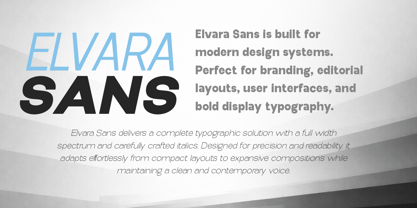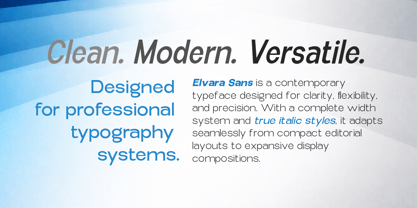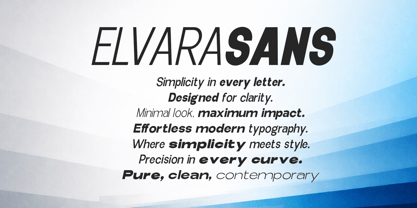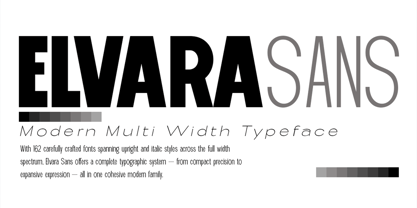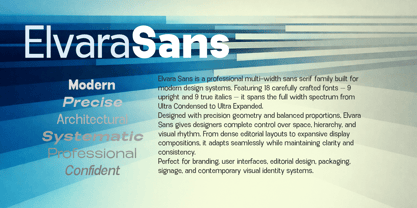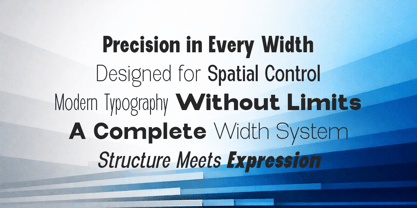
Elvara Sans
von Artisan Studio
Die Schriftfamilie Elvara Sans wurde von Roiyani Teungku entworfen und von Artisan Studio veröffentlicht. Elvara Sans enthält 162 Stile und Familienpaketoptionen. Mehr über diese Familie
ELVARA SANS Elvara Sans is a contemporary sans serif typeface built for precision, versatility, and visual control. Designed with a complete width system, it allows designers to shape layout density, hierarchy, and expression effortlessly — from extremely compact typography to expansive display compositions. The family includes 162 fonts in total: 9 Upright styles and 9 Italic styles, covering the full width spectrum. Each italic is carefully crafted — not simply slanted — to provide dynamic contrast while preserving clarity and balance. Ultra Condensed — Upright & Italic The narrowest and most space-efficient style in the Elvara Sans family. Ultra Condensed is designed for maximum compression without losing structural clarity. Ideal for bold headlines, posters, tight columns, and dramatic vertical layouts that demand strong visual intensity. Extra Condensed — Upright & Italic Highly compact with refined proportions that maintain readability in dense environments. Extra Condensed is perfect for packaging, editorial headlines, structured branding, and information-heavy compositions that require tight spacing with professional clarity. Condensed — Upright & Italic A practical and highly functional narrow width. Condensed offers excellent balance between space-saving efficiency and comfortable readability. Well suited for magazines, corporate materials, UI design, and structured typographic systems. Semi Condensed — Upright & Italic A subtly reduced width that feels efficient yet relaxed. Semi Condensed provides flexibility for modern layouts, branding, and digital use where controlled spacing and visual harmony are essential. Normal — Upright & Italic The core proportion of Elvara Sans. Neutral, balanced, and highly legible, Normal is designed for maximum versatility — ideal for body text, identity systems, editorial work, and everyday design applications. Semi Expanded — Upright & Italic Gently widened proportions create a more open and contemporary appearance. Semi Expanded enhances readability and adds visual breathing space, making it perfect for modern branding, elegant layouts, and premium design environments. Expanded — Upright & Italic Clearly wider and more expressive. Expanded provides strong visual presence and clarity, making it ideal for signage, headlines, and confident brand communication that benefits from openness and emphasis. Extra Expanded — Upright & Italic Boldly wide and highly expressive. Extra Expanded delivers strong typographic personality and visual impact, perfect for posters, display headlines, and striking identity design. Ultra Expanded — Upright & Italic The widest and most dramatic style in the family. Ultra Expanded is designed for maximum visual statement — ideal for large-scale display, futuristic compositions, and standout branding that demands attention. With 162 carefully crafted fonts spanning upright and italic styles across the full width spectrum, Elvara Sans offers a complete typographic system — from compact precision to expansive expression — all in one cohesive modern family.
Designer: Roiyani Teungku
Foundry: Artisan Studio